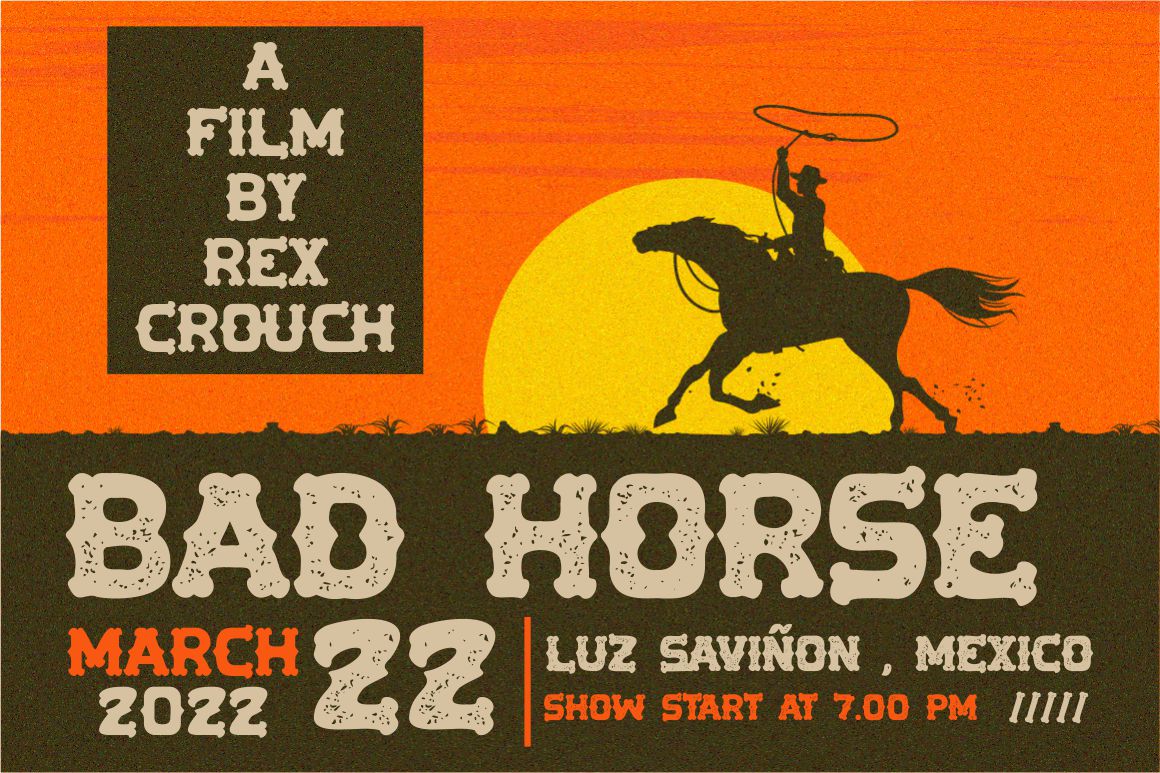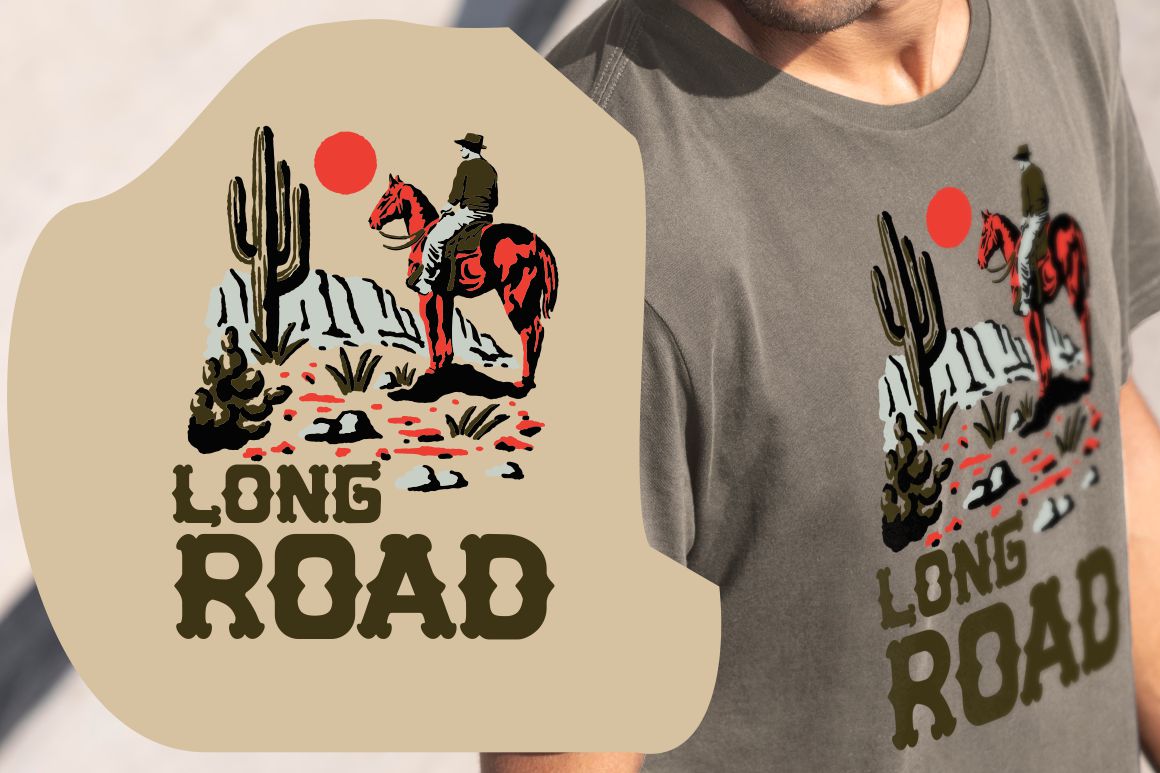
Introducing Todos Santos, a slab serif font that brings a classic and timeless feel to any design project. This font is designed with a touch of elegance, making it perfect for titles, headlines, and other creative applications.
Todos Santos is available in both uppercase and lowercase letters, as well as numerals, punctuations, and symbols. The font also includes multilingual support, making it easy to use for designers and creatives around the world.
Inspired by the vintage signage found in small towns and classic American diners, Todos Santos is a versatile font that can be used for a variety of design projects. Its clean and bold lines make it ideal for logos, branding, packaging, and editorial designs.
Whether you’re working on a retro-inspired project or just looking for a font with a classic touch, Todos Santos is a great choice. With its unique personality and timeless style, it is sure to make your designs stand out.